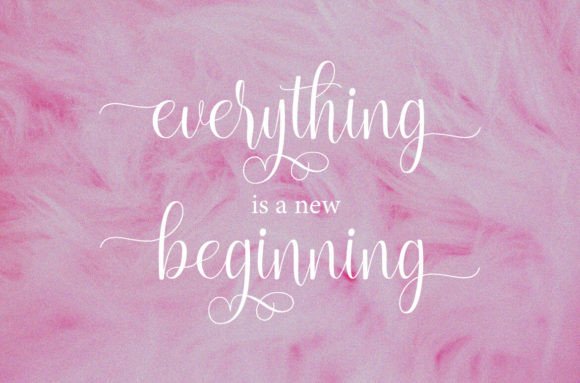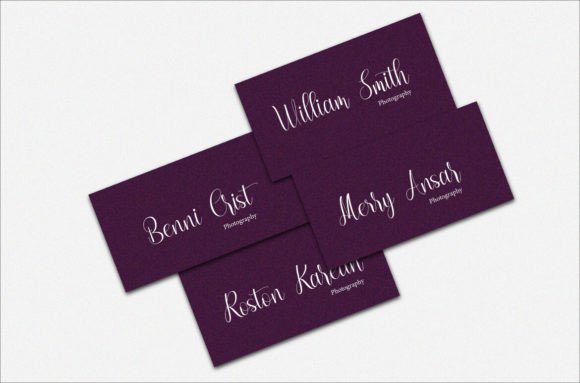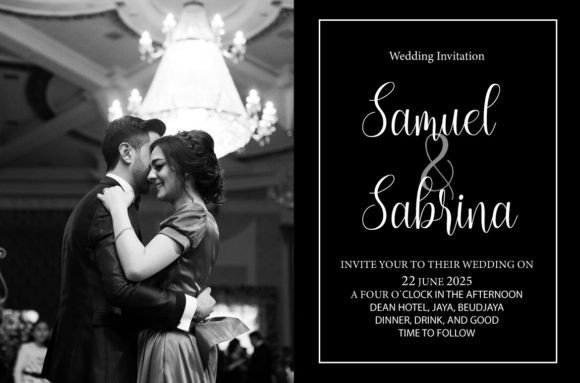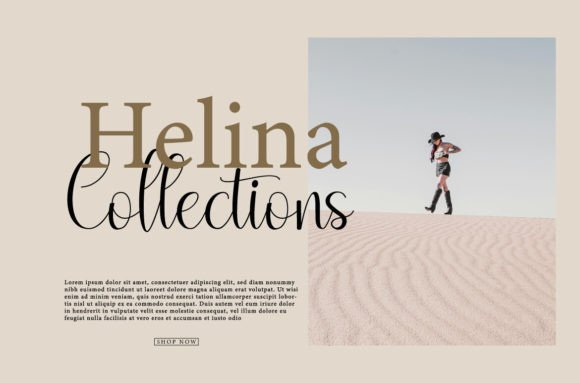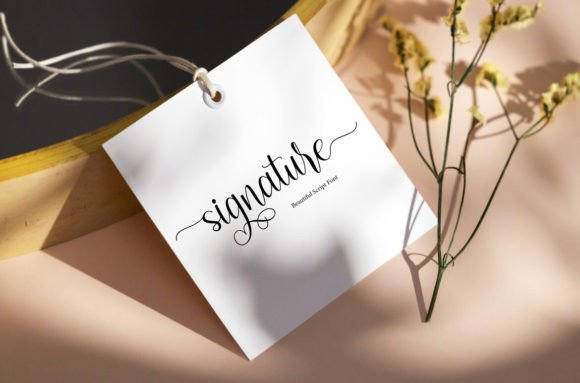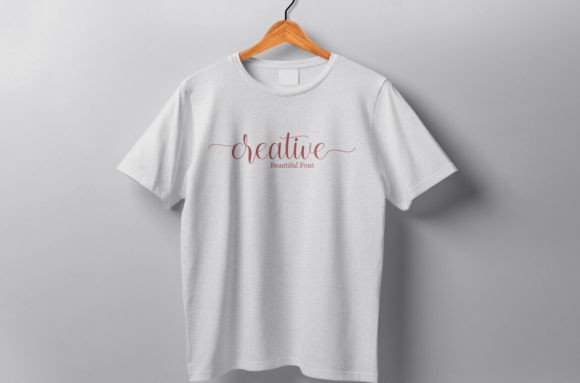
Introducing Birthday Font: The Perfect Script for Celebratory Designs
Are you looking for a font that can add a touch of elegance and sophistication to your birthday-themed designs? Look no further than Birthday Script, a fresh and modern script font that is perfect for creating stunning invitations, greeting cards, and other celebratory materials.
What Makes Birthday Script So Special?
Birthday Script is a handmade calligraphy-style font that features decorative characters and a dancing baseline, giving it a unique and playful feel. This font is designed to make your designs stand out, whether you’re creating invitations, branding materials, business cards, quotes, posters, or any other type of visual project.
Key Features of Birthday Script
- Handmade Calligraphy Style: Birthday Script is crafted with love and care to give it a personal, handwritten feel that is perfect for special occasions.
- Decorative Characters: The font features a range of decorative characters, including swashes, flourishes, and other embellishments that can add a touch of whimsy to your designs.
- Dancing Baseline: The dancing baseline gives Birthday Script a playful, dynamic feel that is perfect for creating eye-catching designs.
- Modern and Fresh: Despite its classic calligraphy style, Birthday Script is a modern and fresh font that is perfect for designers who want to create contemporary designs.
Uses for Birthday Script
Birthday Script is a versatile font that can be used for a wide range of design projects, including:
- Invitations: Create stunning birthday invitations that set the tone for a special celebration.
- Greeting Cards: Design beautiful greeting cards that feature a personal touch.
- Branding Materials: Use Birthday Script to create branded materials that reflect your company’s personality and style.
- Business Cards: Add a touch of elegance to your business cards with this beautiful script font.
- Quotes and Posters: Create inspiring quotes and posters that feature a decorative, eye-catching font.
Why Choose Birthday Script?
There are many script fonts available, but Birthday Script stands out for its unique combination of handmade calligraphy style, decorative characters, and dancing baseline. Here are just a few reasons why you should choose Birthday Script for your next design project:
- Unique and Eye-Catching: Birthday Script is a one-of-a-kind font that is sure to grab attention.
- Elegant and Sophisticated: The font’s classic calligraphy style gives it an air of elegance and sophistication.
- Versatile: Birthday Script can be used for a wide range of design projects, from invitations to branding materials.
Tips for Using Birthday Script
To get the most out of Birthday Script, here are a few tips to keep in mind:
- Use it Sparingly: While Birthday Script is a beautiful font, it can be overwhelming if used too much. Use it sparingly to create a sense of drama and emphasis.
- Experiment with Colors: The font looks great in a range of colors, so don’t be afraid to experiment and find the perfect hue for your design.
- Pair it with Other Fonts: Birthday Script looks great when paired with other fonts, so try combining it with a sans-serif font for a contrasting look.
Birthday Script is a stunning script font that is perfect for designers who want to create beautiful, celebratory designs. With its handmade calligraphy style, decorative characters, and dancing baseline, this font is sure to add a touch of elegance and sophistication to any project. Whether you’re creating invitations, branding materials, or other visual projects, Birthday Script is a great choice.